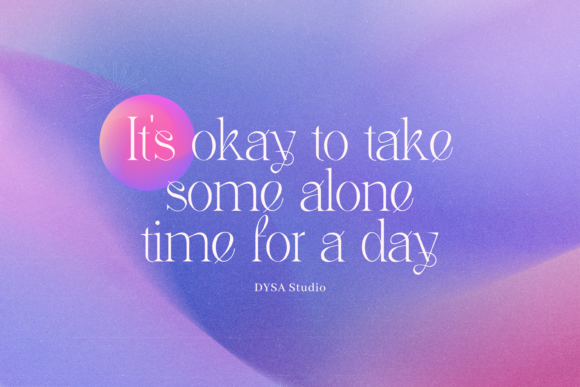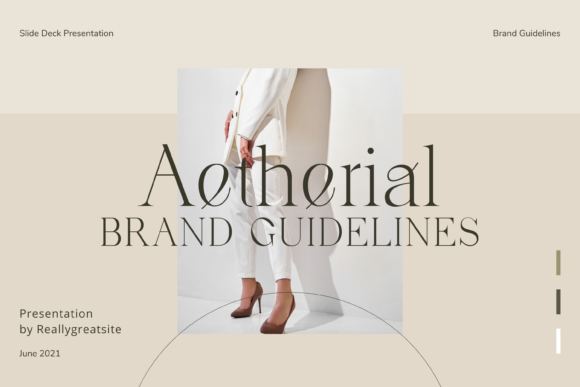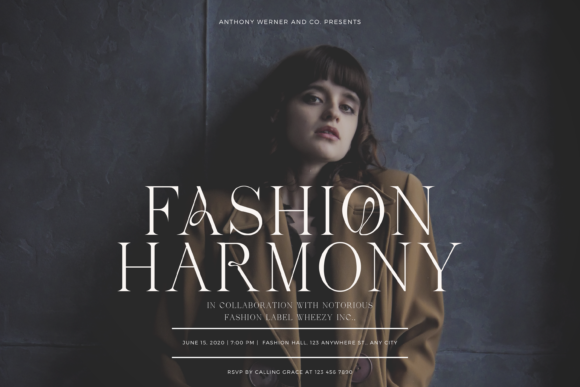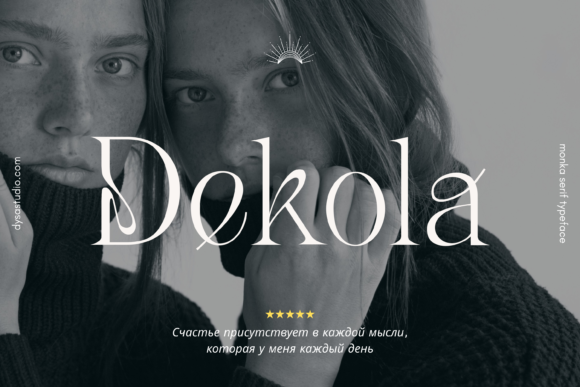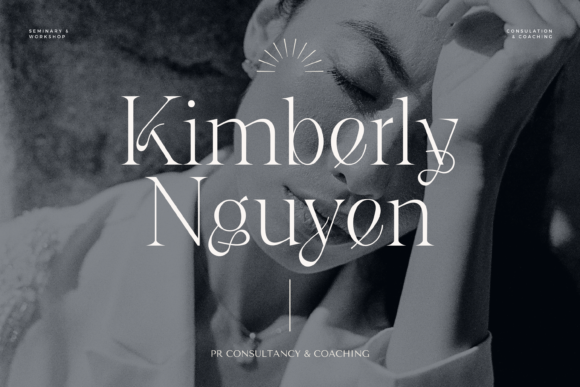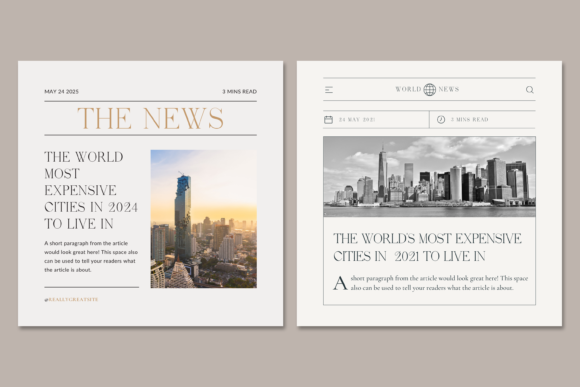
Introduction to Monka Font
Monka is a modern and extremely unique serif font, excellent for businesses or branding.
It is perfect for anyone who needs a clean, modern, minimalist, elegant and beautiful typeface .